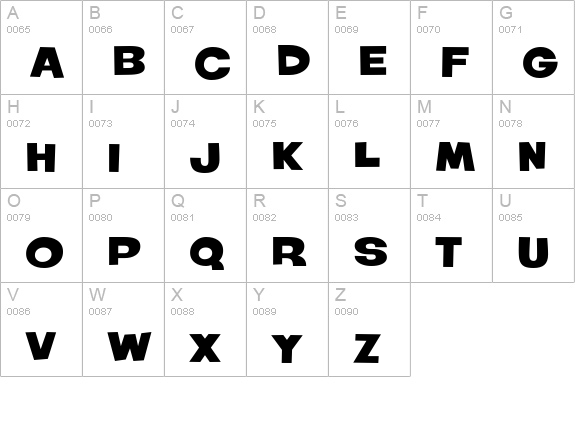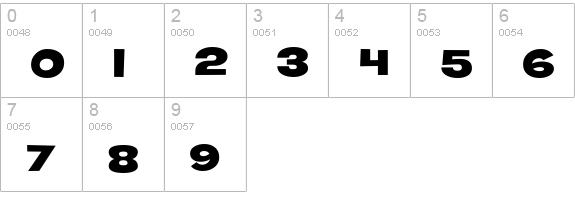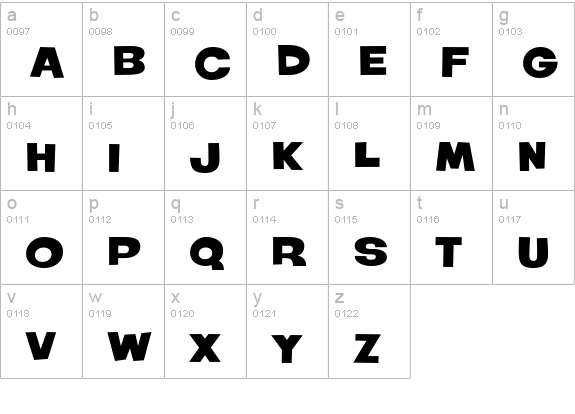
Roller World BTN Wide Bold Font Details
Roller World BTN Wide Bold is a strong, high-contrast, extended-width variant in the Roller typeface family \xE2\x80\x94 well suited to headlines, attention-grabbing titles, and strong calls-to-action.
Roller World BTN Wide Bold font is a bold and eye-catching display typeface that exudes a sense of excitement and energy. Its wide letterforms create a strong visual impact, making it perfect for headlines, posters, and other design projects that require a dynamic and engaging look. With its unique and playful style, Roller World BTN Wide Bold font is sure to grab the attention of your audience. The best part is that Roller World BTN Wide Bold font is available for free download at FontsMarket.com. This means you can easily access this striking font and use it in your creative projects without any cost. Don't miss out on the opportunity to add this fun and versatile typeface to your font collection today!